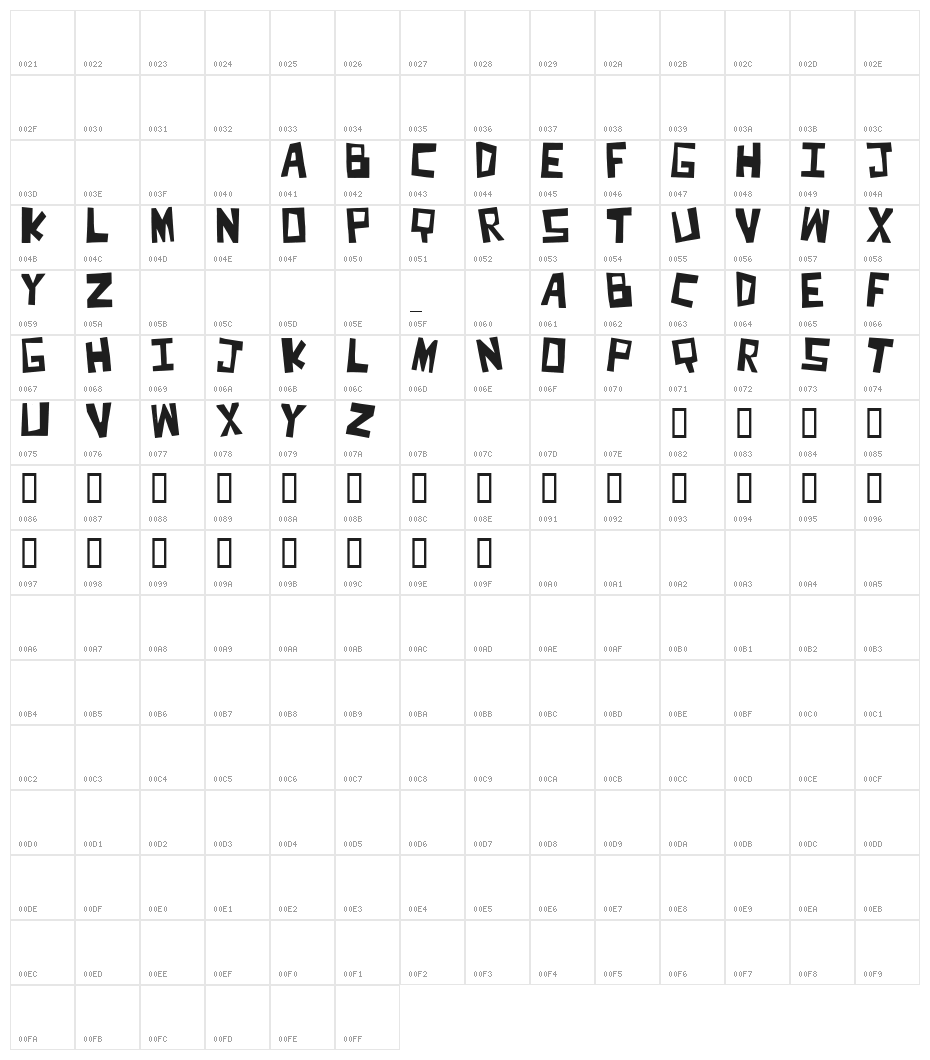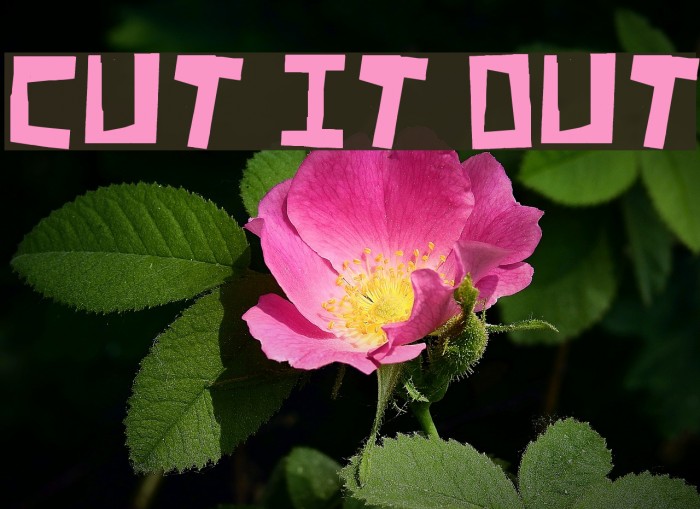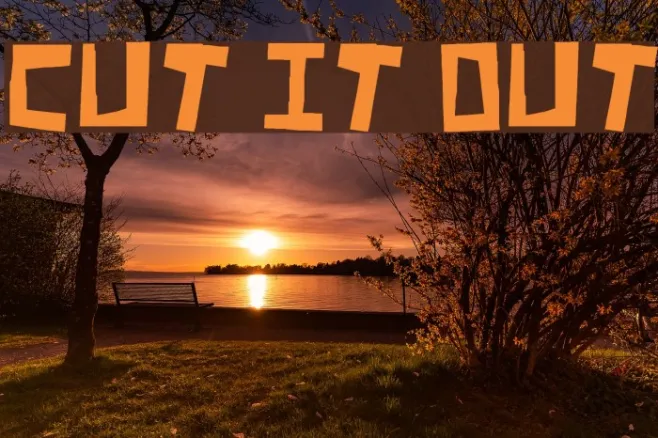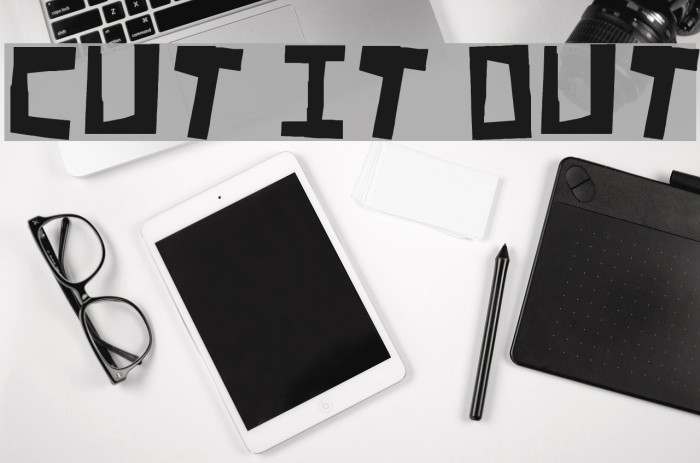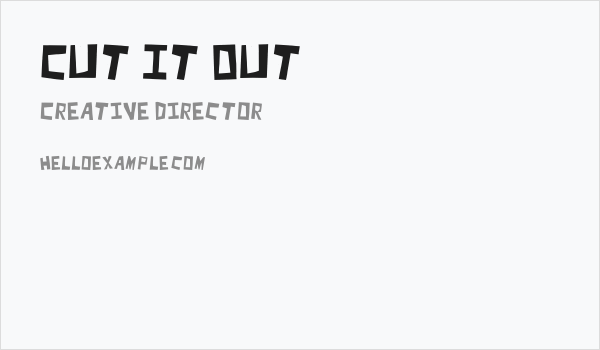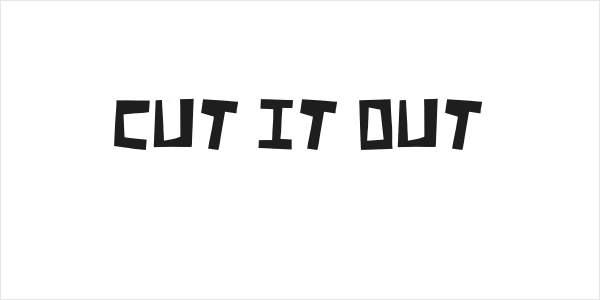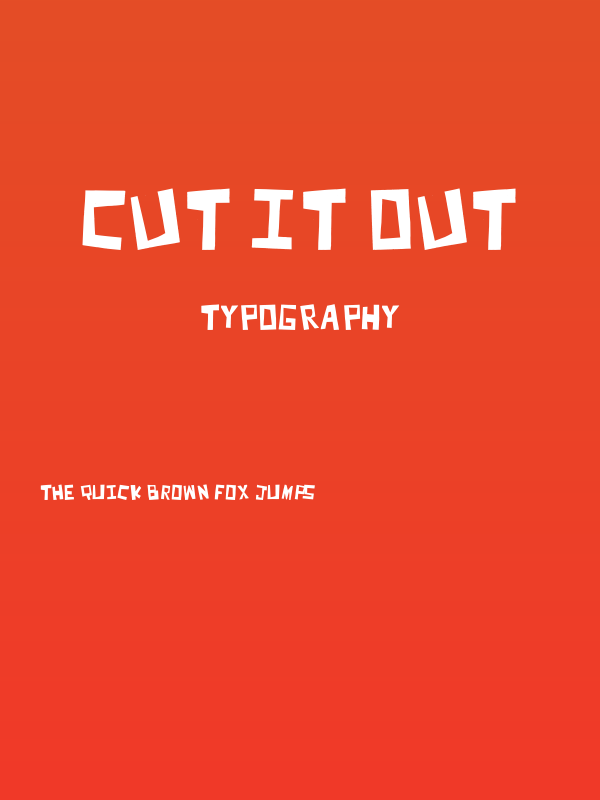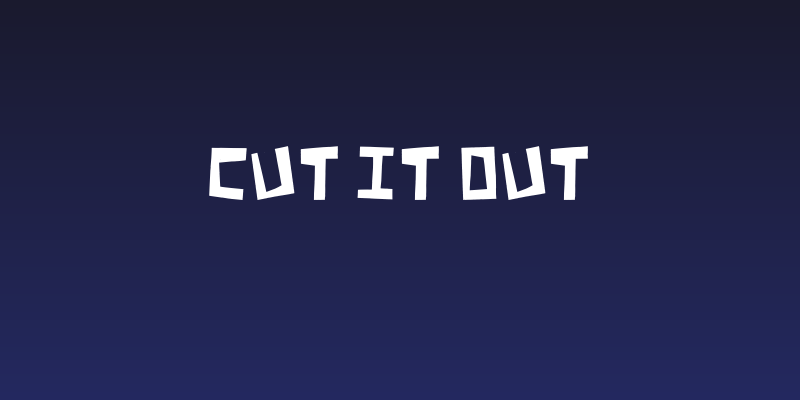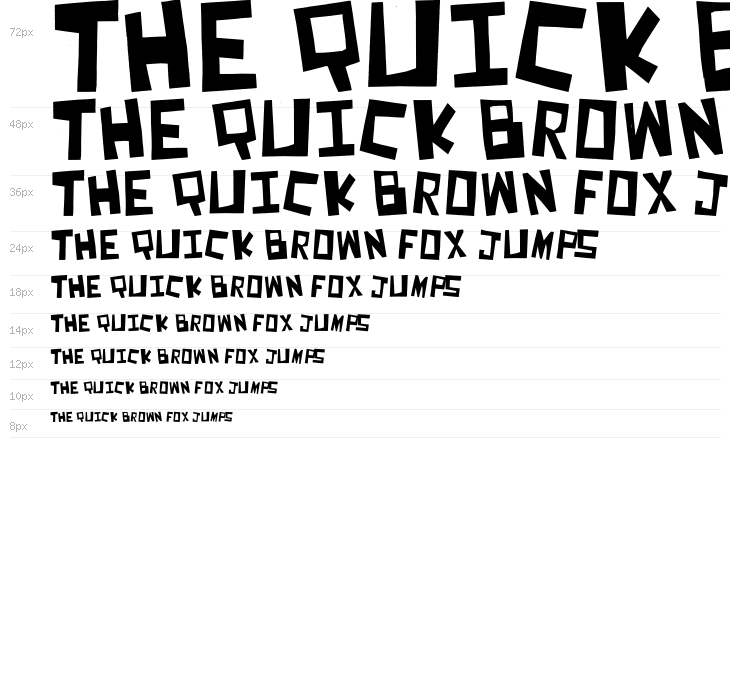
Cut It Out Font
Cut It Out Description
This font features a bold, playful design with a cut-out appearance, reminiscent of letters crafted from paper or fabric. Each character has a unique, irregular shape, giving it a handcrafted, artistic feel. The uppercase and lowercase letters maintain a consistent style, with sharp angles and varying line thicknesses that add to its dynamic look. The font's quirky and informal nature makes it stand out, perfect for creative projects that require a touch of whimsy and individuality.
| Proposed Projects | Ideal for children's book covers, playful posters, arts and crafts branding, and creative event invitations. |